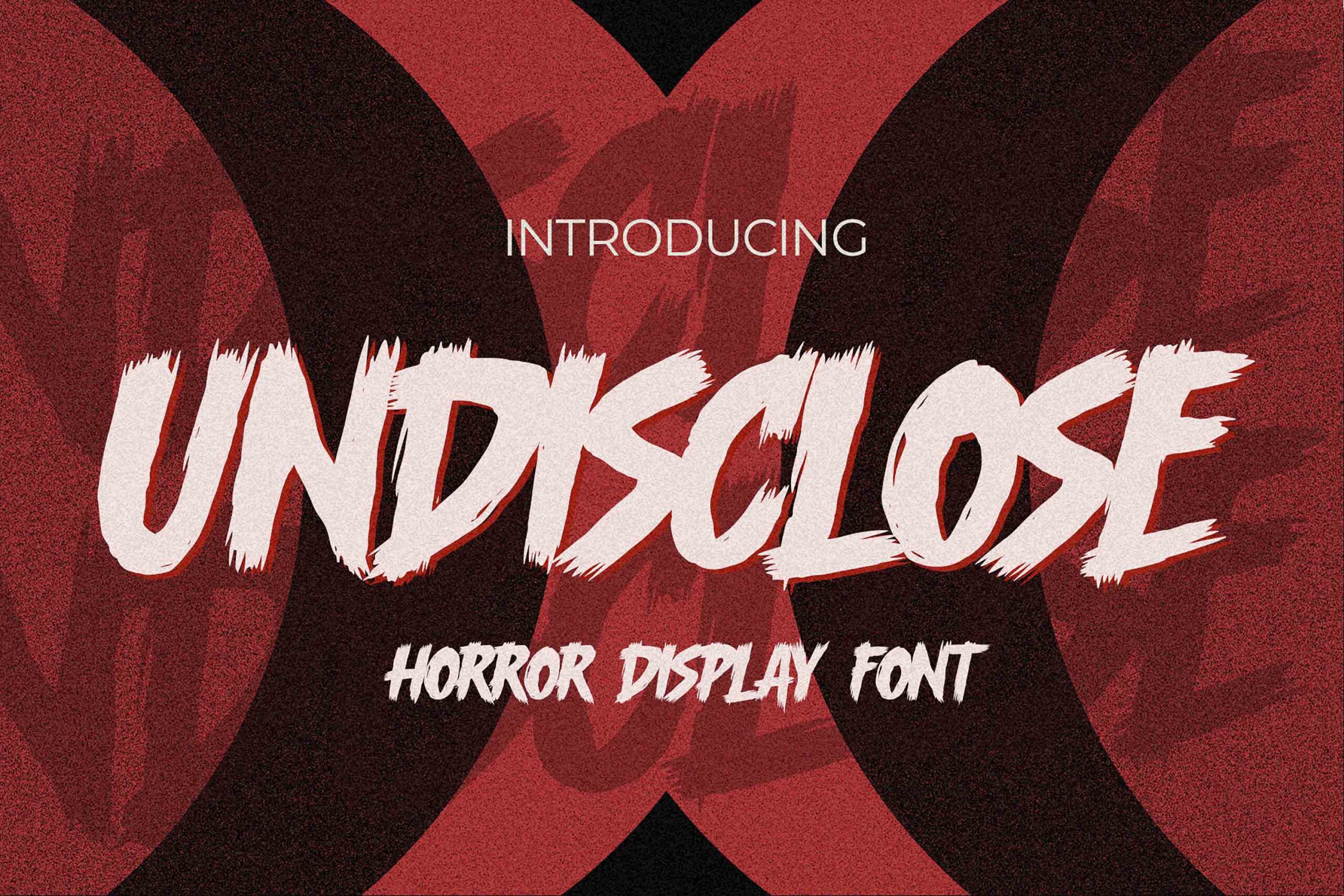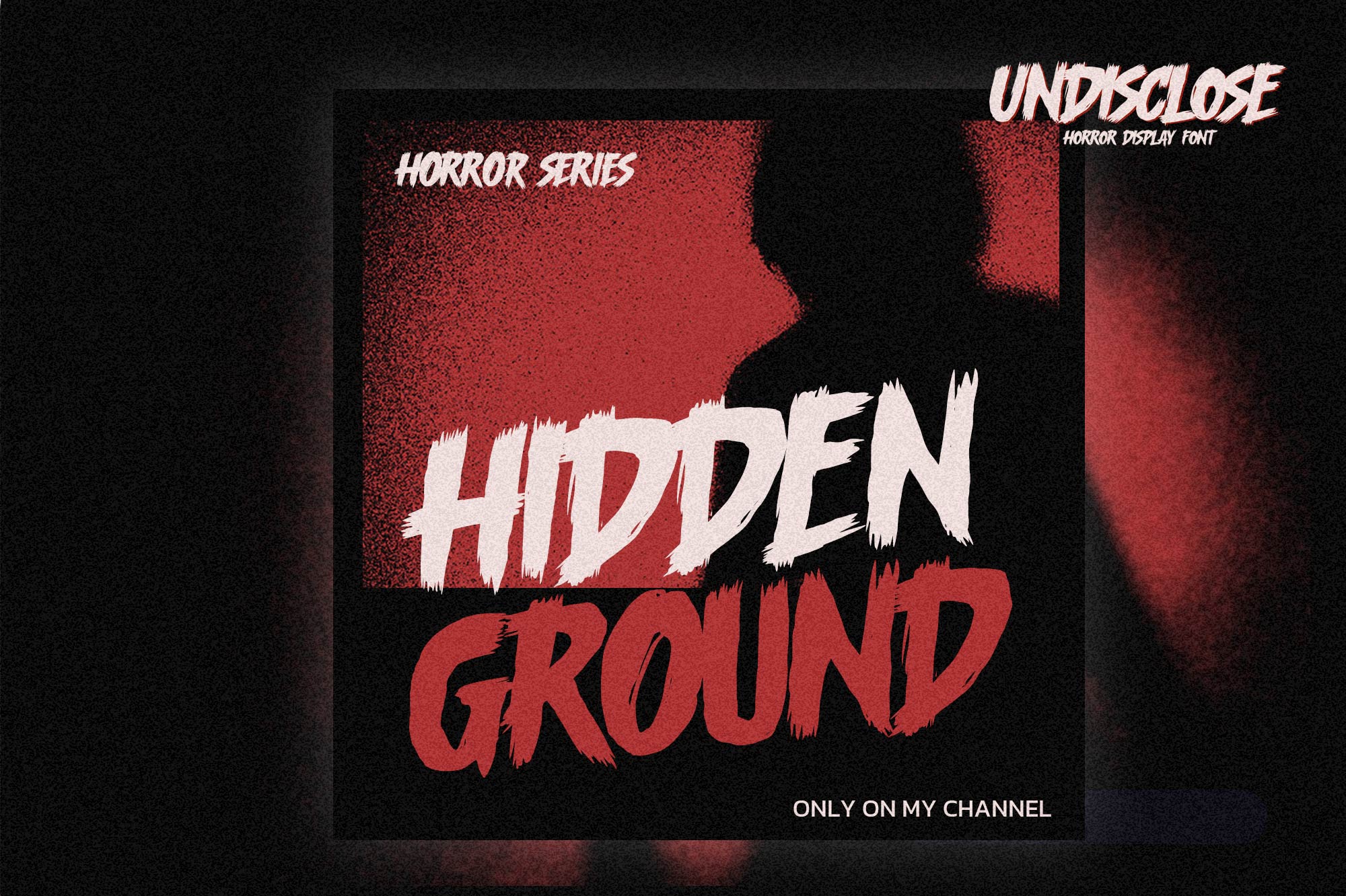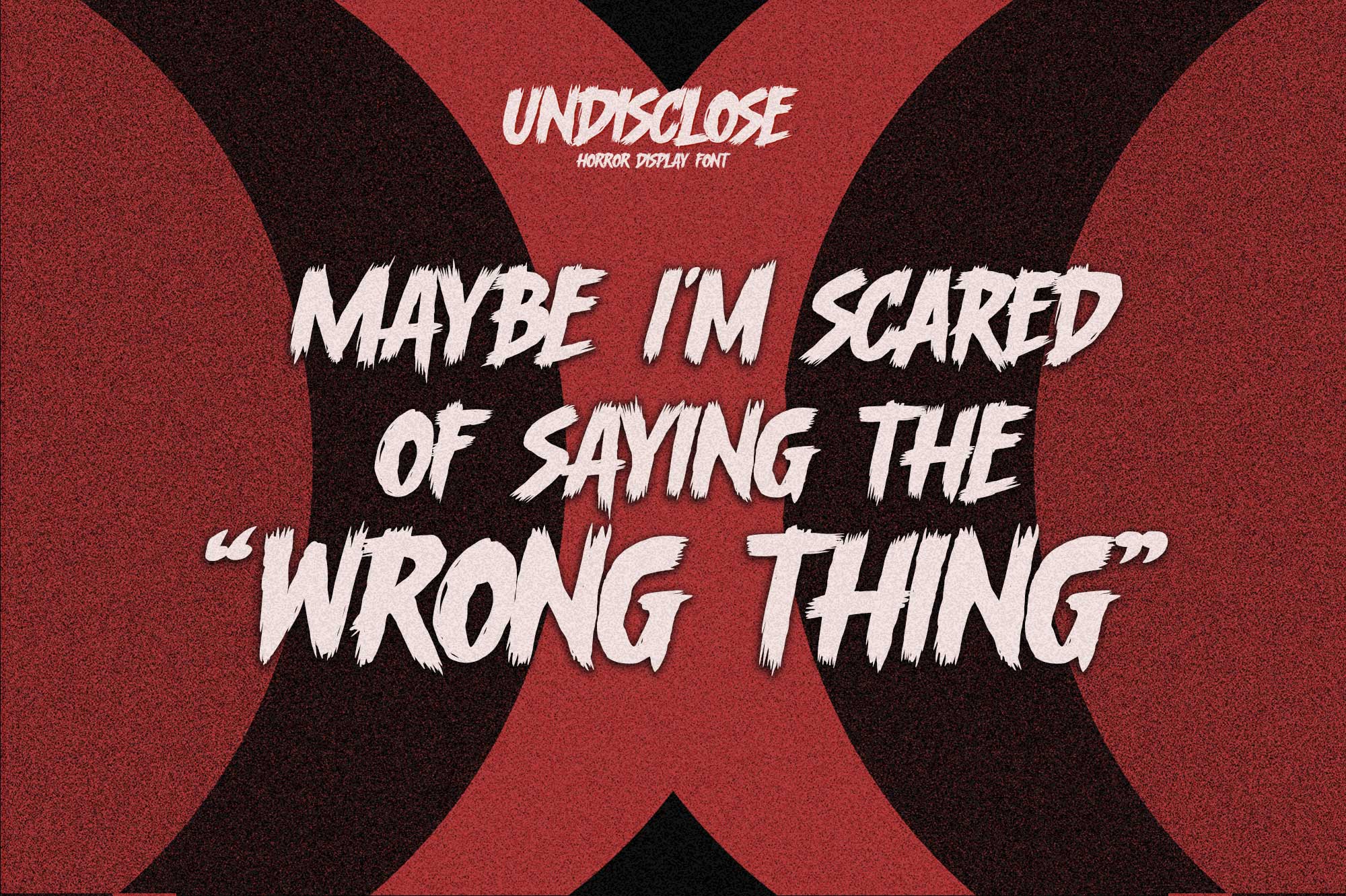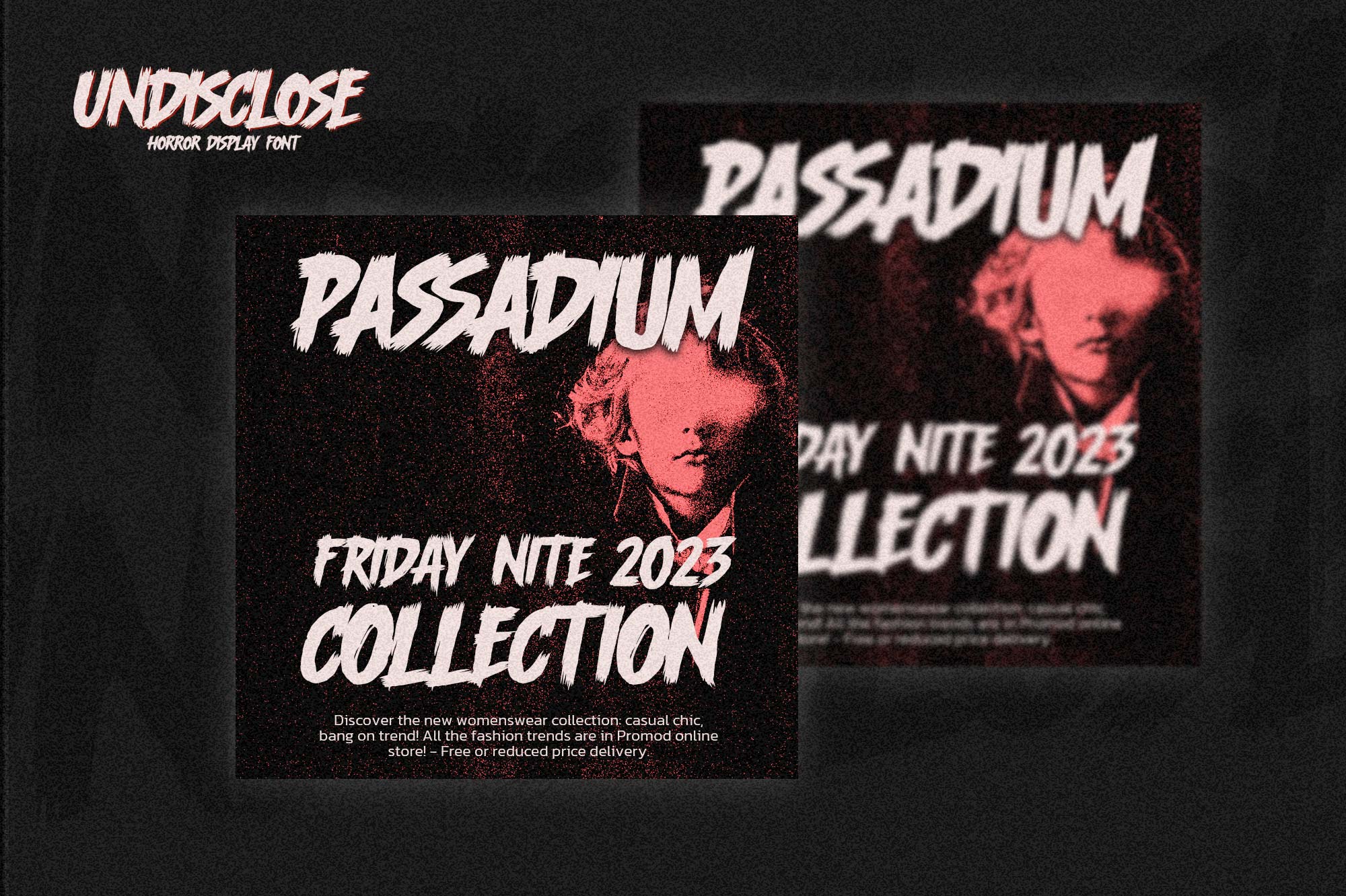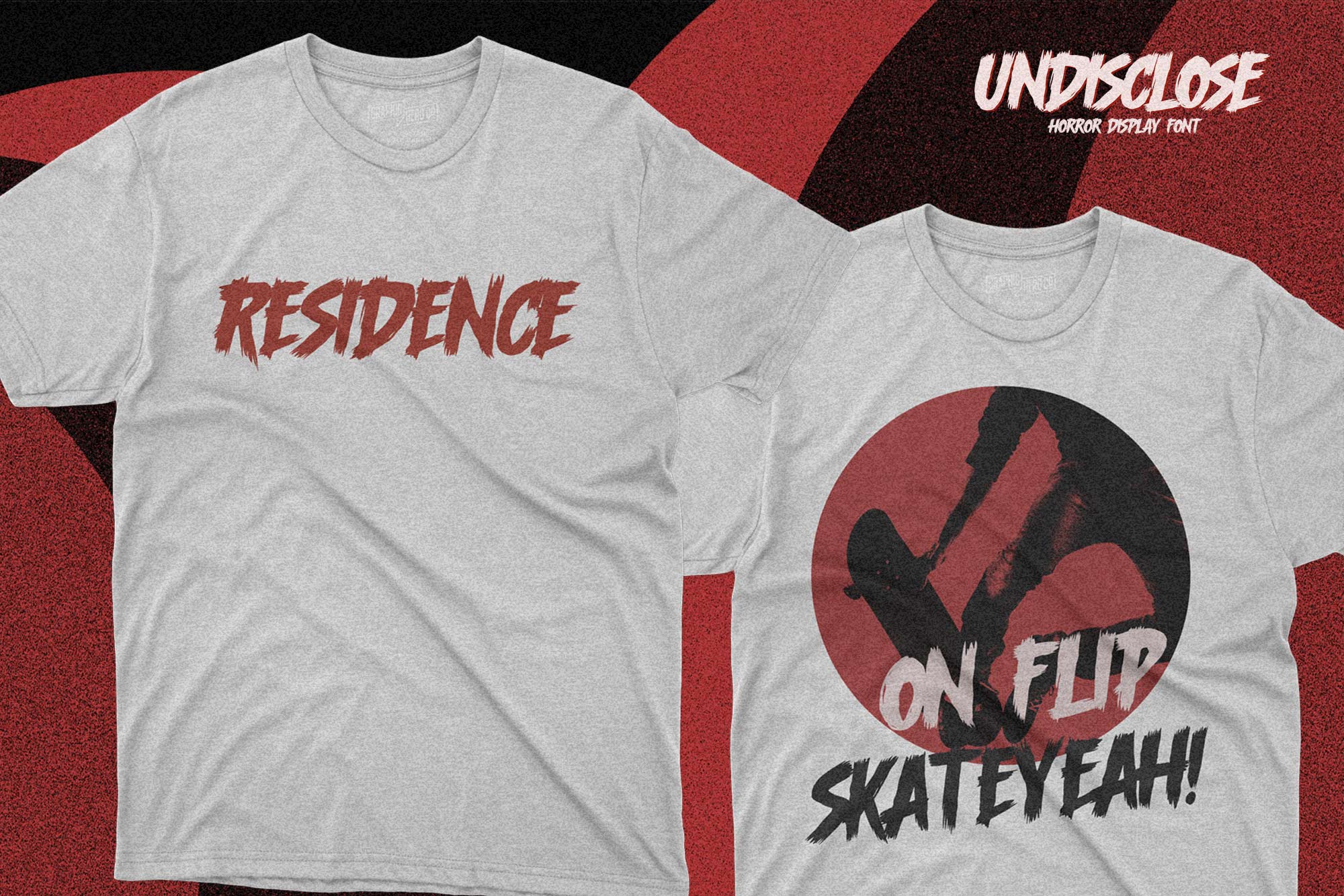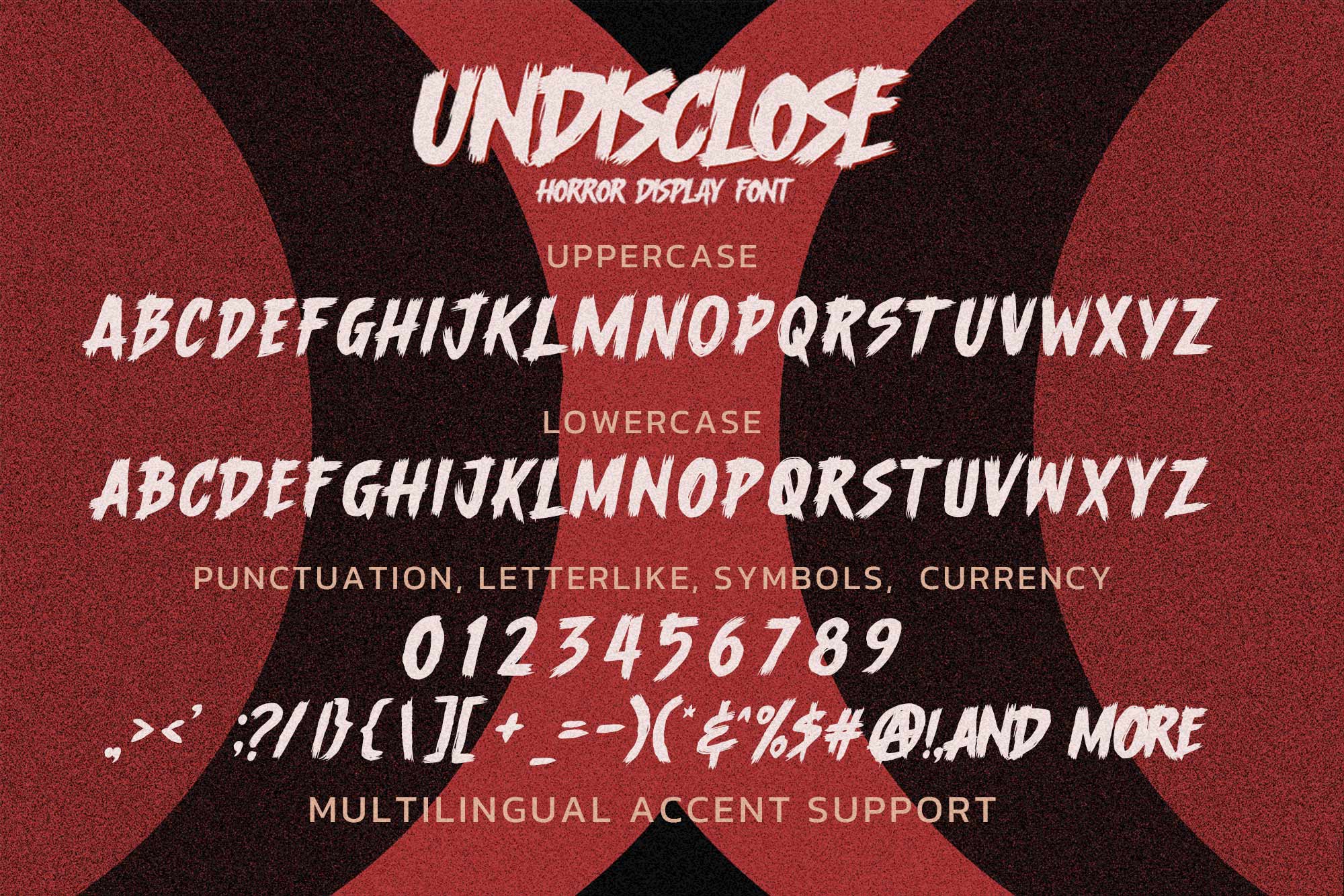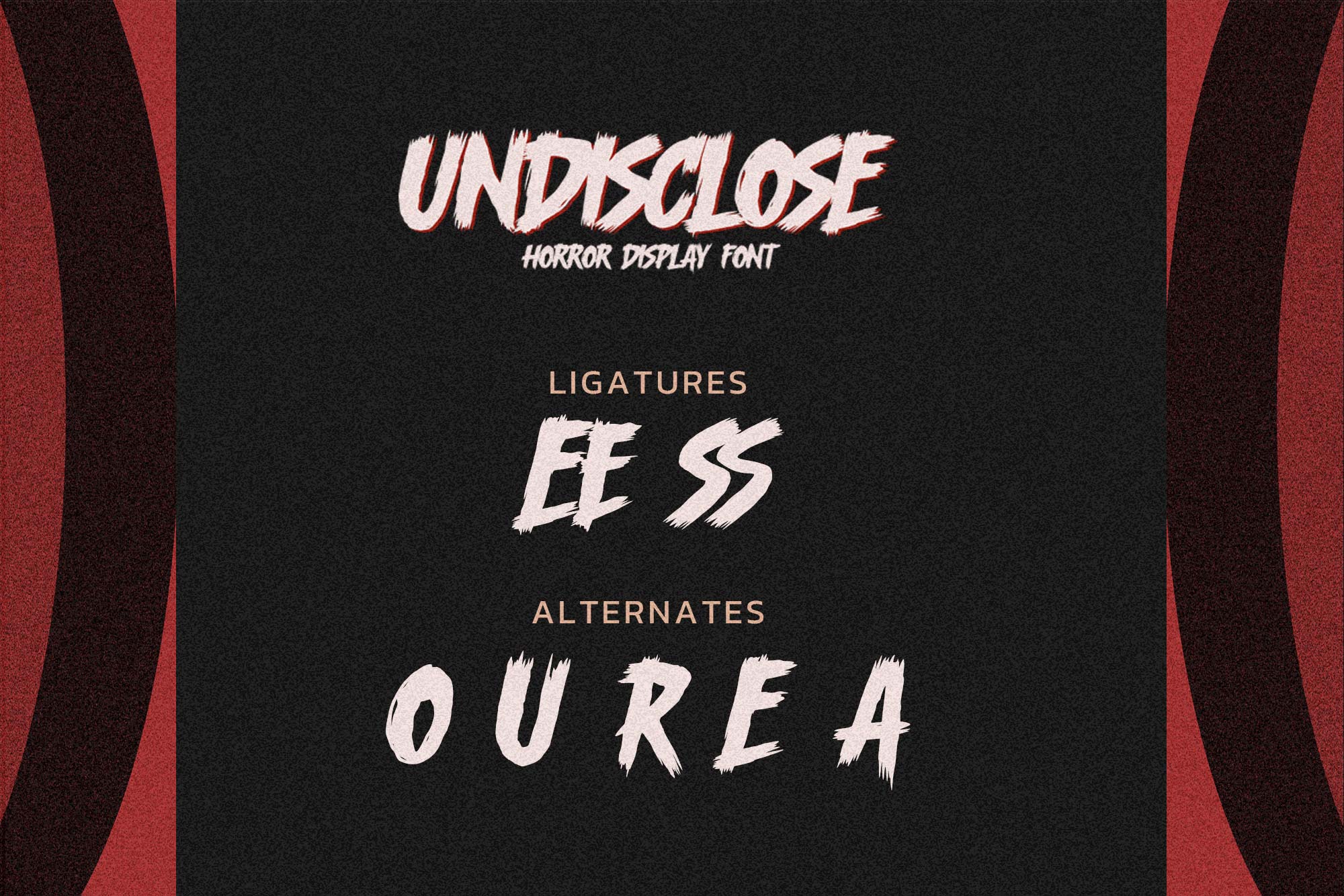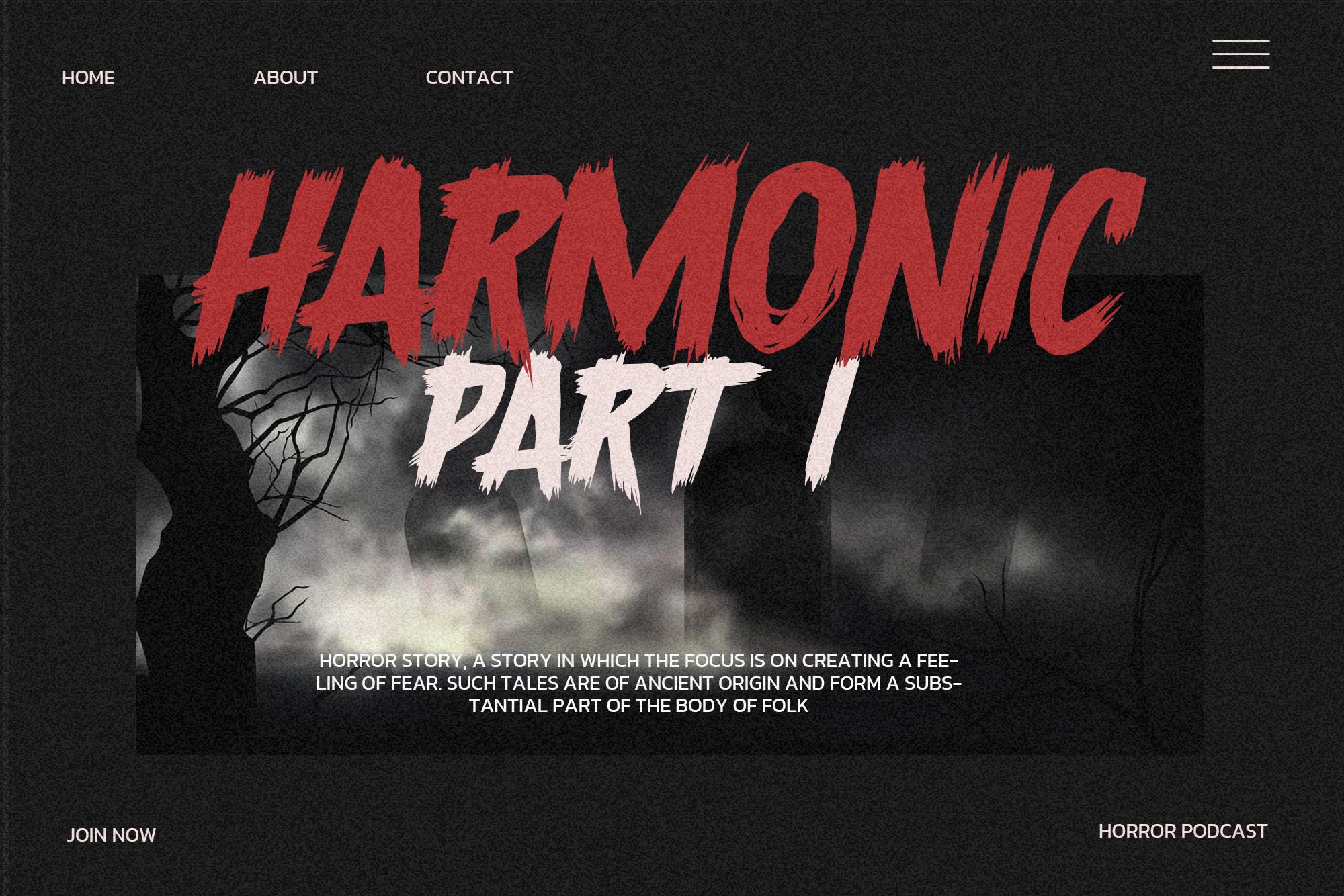
UNDISCLOSE – Horror Display Font , modern style and dramatic movement that is written casually and quickly.
The best for labels,poster,project , designs look modern, rough and unique. It’s perfect for labels, quotes, posters, DIY projects, branding, packaging, greeting cards, websites, photography overlays, signs, scrapbooking, tags and so much more! That is why UNDISCLOSE has a textured, and strong characteristic more natural look. You can activate Ligatures and Alternate glyphs OpenType panel.
- Alternate glyphs